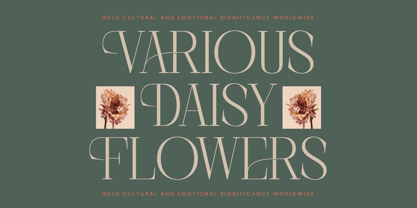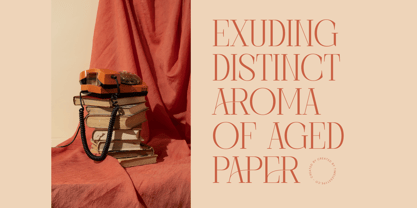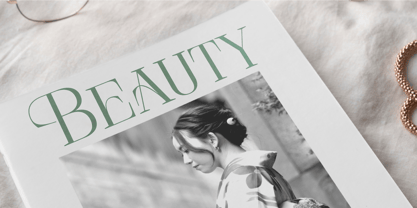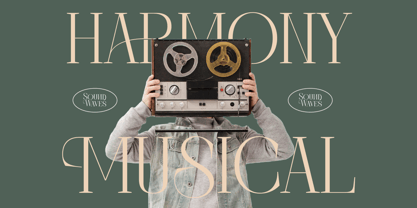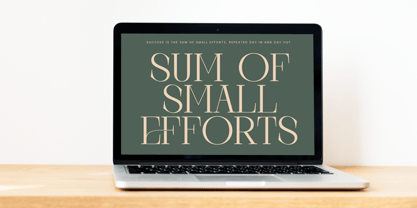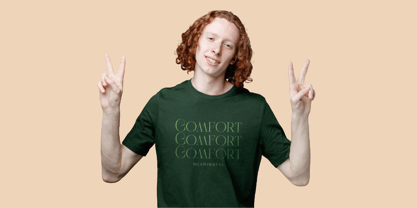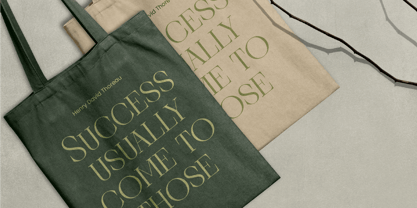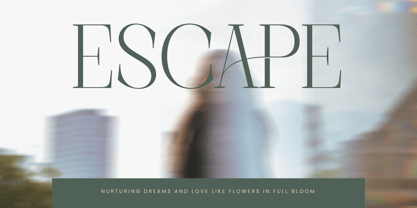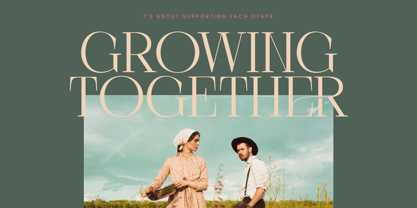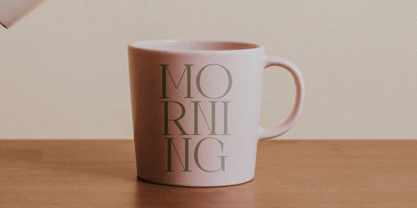
Barely Painter
by Timelesstype Studio
The Barely Painter Font Family was designed by Heru Utama Putra and published by Timelesstype Studio. Barely Painter contains 2 styles and family package options. More about this family
Barely Painter - All Caps Serif Display , from Timelesstype, Suitable for any projects such as: logos, branding projects, homeware designs, product packaging, mugs, quotes, posters, shopping bags, t-shirts, book covers, name card, invitation cards, greeting cards, label, photography, watermark, special events, and all your other luxury and beautiful projects that need a Luxury Serif taste.